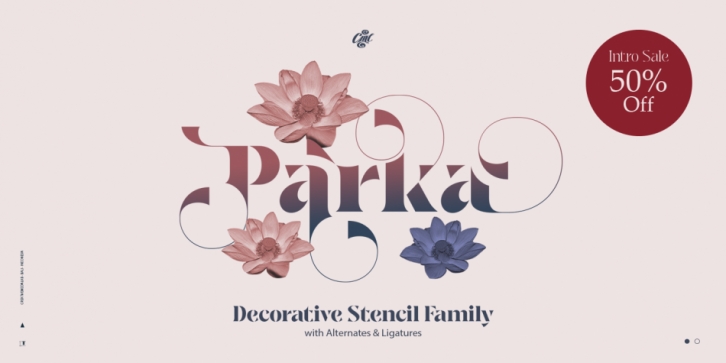
Parka is a stencil font family. This typeface has nine styles and was published by Creative Media Lab.
Parka is a Unique and fashionable stencil font with tons of alternative characters and ligatures.
Softly curved alternates match the strong and masculine looks for the balance of form and shape.
Best for branding, title poster, and many more.